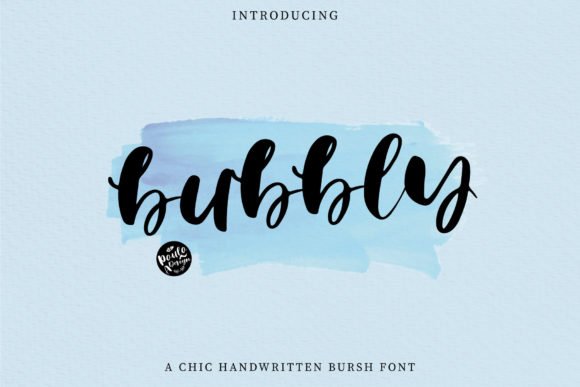
The Perfect Splash of Personality: Bubbly Font
Have you ever stared at a blank page, trying to come up with the perfect headline, only to be stuck in a creative rut? You know the feeling – it’s like the words just won’t come together, and your design is left feeling flat.
That’s where the Bubbly Font comes in – a chic brush font that adds a touch of elegance and sophistication to any design. With its stylish look, it’s perfect for high-impact headlines that demand attention. Whether you’re creating invitations, branding, blog posts, or something entirely new, the Bubbly Font is the perfect tool to elevate your design game.
As a designer, you know how valuable it is to have a versatile and eye-catching font at your fingertips. The Bubbly Font is that and more – a go-to choice for adding a touch of whimsy and personality to your designs. So why settle for a boring, generic font when you can add a splash of personality with the Bubbly Font?
Bubbly Font Key Features
- Font Family: Bubbly Font is a unique, hand-drawn font family designed to evoke a playful and whimsical feel.
- Character Set: Includes a wide range of characters, including uppercase and lowercase letters, numbers, punctuation marks, and special characters.
- Unique Characteristics: Features an organic, hand-crafted feel with subtle imperfections and irregularities, giving it a distinctive and charming appearance.
Bubbly Font Review
First off, let me say that I’m a fan of the overall aesthetic of Bubbly Font. It’s a unique and playful font that can add a touch of whimsy to any design project ✨. The font’s bubbly, rounded edges and irregular shapes give it a fun and carefree feel that’s perfect for branding, social media, or any other project that needs a bit of personality.
One of the things I like about Bubbly Font is its versatility. It comes in a range of weights and styles, from light and airy to bold and statement-making ✨. This makes it easy to use in a variety of contexts, from body text to headings.
However, there are a few limitations to keep in mind ⚠️. For one, the font can be a bit too playful for some projects. It may not be the best choice for serious or formal designs, where a more straightforward font might be a better fit. Additionally, the font’s irregular shapes can make it a bit difficult to read in smaller sizes.
Overall, I’d say that Bubbly Font is a solid choice for designers looking for a fun and playful font ✨. While it may not be perfect for every project, it’s a great option for designers who want to add a bit of personality and whimsy to their designs.
- Unique, playful aesthetic
- Range of weights and styles
- Versatile and easy to use
- May be too playful for formal designs
- Irregular shapes can make it difficult to read in smaller sizes
Bubbly Font: A Practical Application Guide
In PowerPoint or Word, select the “Bubbly Font” from the font list in the Home tab. You can then adjust the font size, color, and style to match your design. To add visual interest, use the font in combination with other design elements, such as images and graphics.
For a more playful and creative look, use the Bubbly Font in headings and subheadings. It’s also a great choice for titles, captions, and other text elements that require a sense of whimsy and fun. Additionally, use the font in combination with other design elements, such as shapes and graphics, to create a more dynamic and visually appealing design.
Alternatives to Bubbly Font for Designers
Great Vibes is a beautiful, elegant script font that’s perfect for creating a sense of warmth and sophistication. It’s ideal for use in branding, advertising, and editorial design.
Compared to Bubbly Font, Great Vibes has a more refined and polished look, making it suitable for high-end designs. While Bubbly Font is more playful, Great Vibes exudes a sense of luxury and sophistication.
The recommended line height for Bubbly Font is 1.2 to 1.5 times the font size. This will ensure proper spacing between lines of text and improve readability. For example, if you’re using a 14px font size, use a line height of 16.8px to 21px.